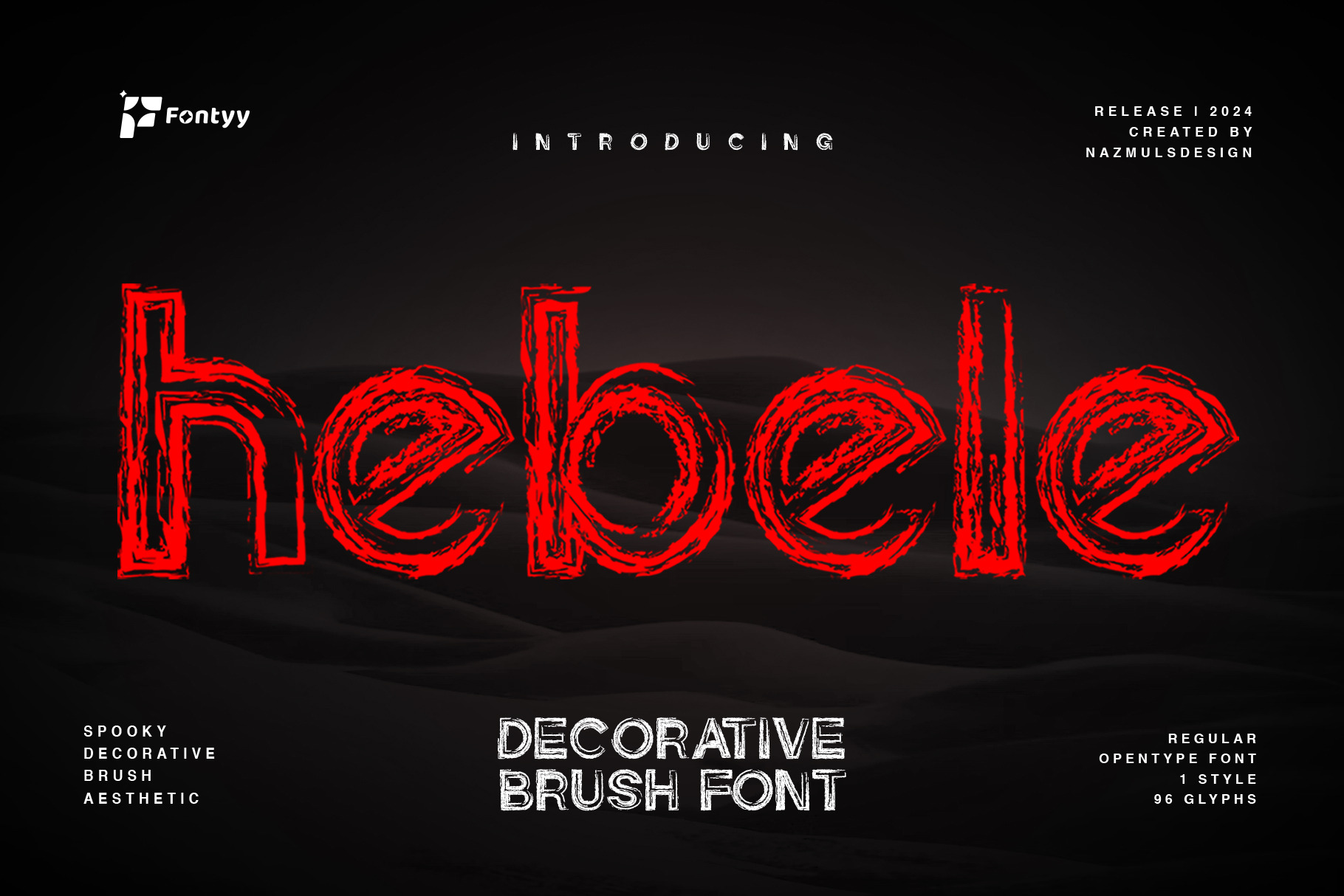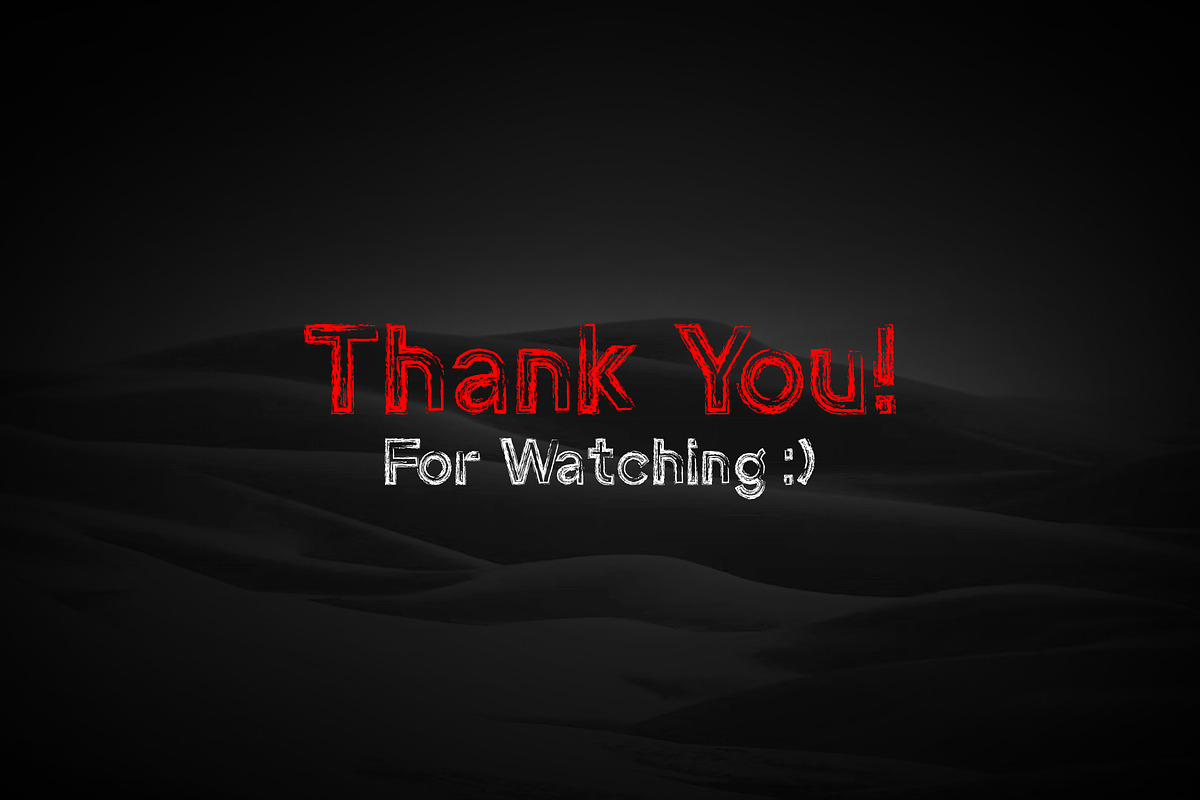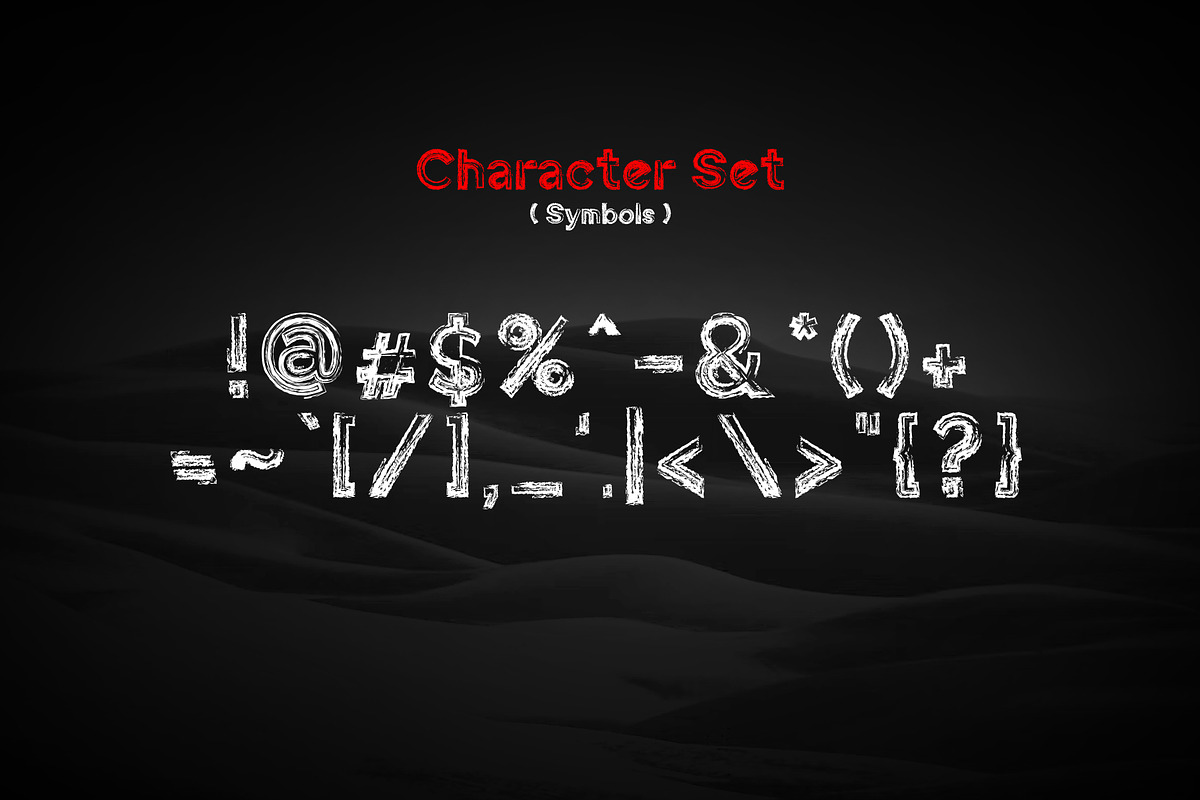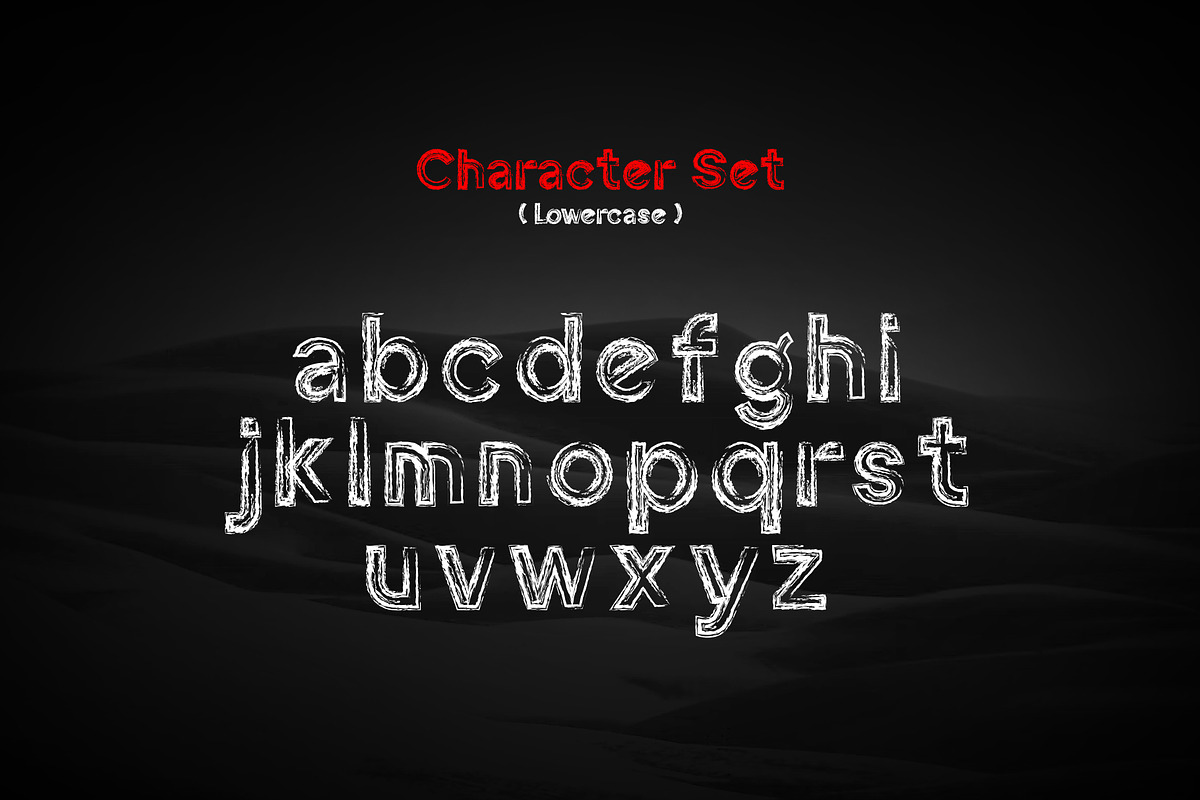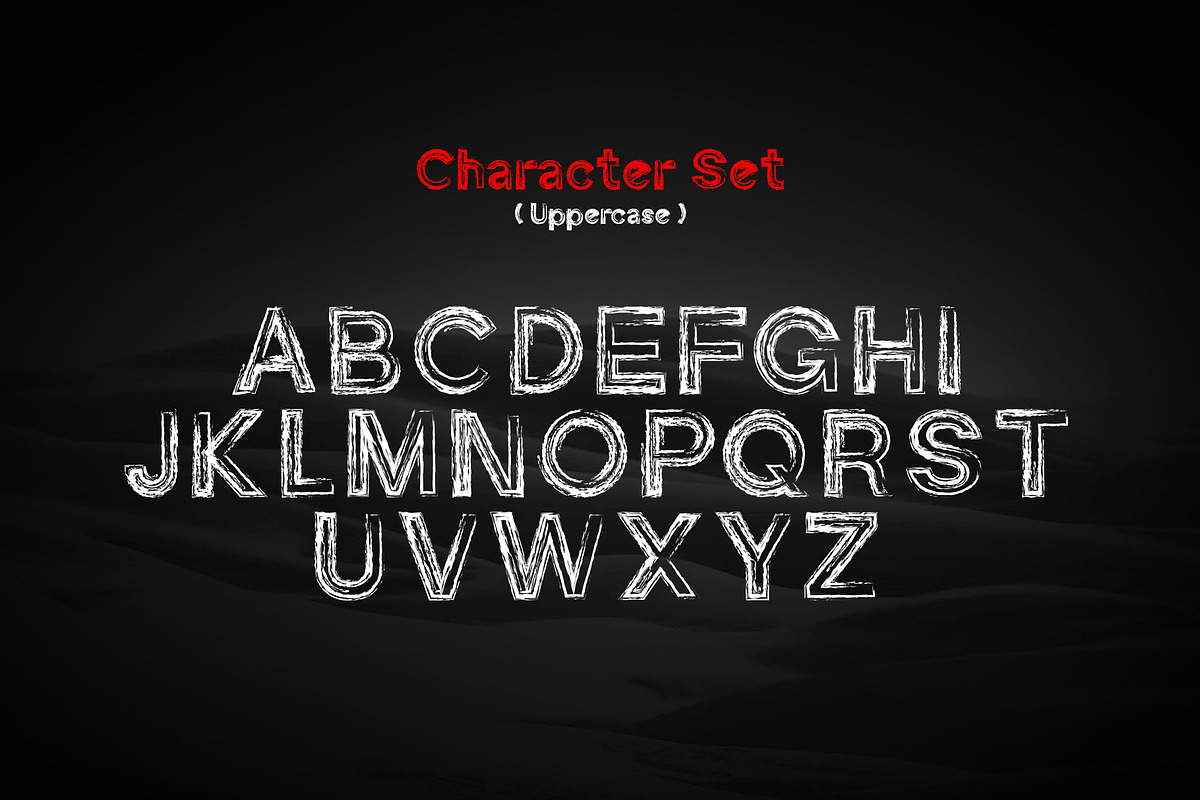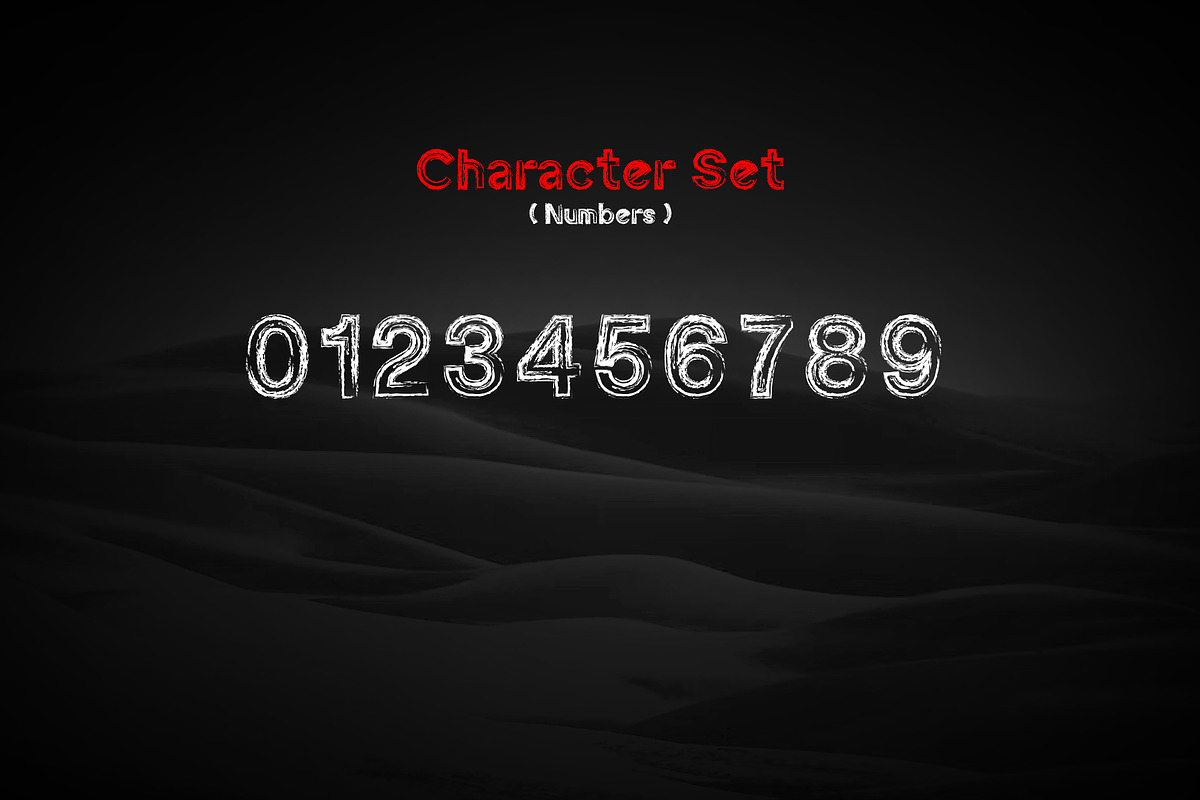
Hebele Typeface - Brush Font
Introducing Hebele, a dynamic Decorative Brush font that exudes creativity and artistic flair. Perfectly crafted for designs that demand a bold and expressive touch, Hebele brings a sense of movement and texture to every letterform. Whether used for branding, posters, movies, or social media graphics, this font is designed to stand out and make a statement. With its unique strokes and handcrafted feel, Hebele adds a personal and artistic vibe to any project, making it the go-to choice for designers seeking a distinctive and captivating typeface.